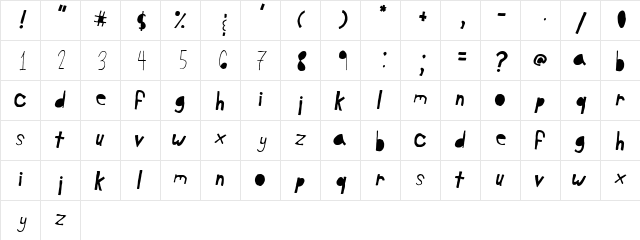
June 5 Regular
| Foundry | Harried Type Co. |
| Designer | H.G. Blakeman |
Design Context for June 5 Typeface
June 5 is a composed and adaptable typeface that performs quietly and consistently across a wide range of design contexts.